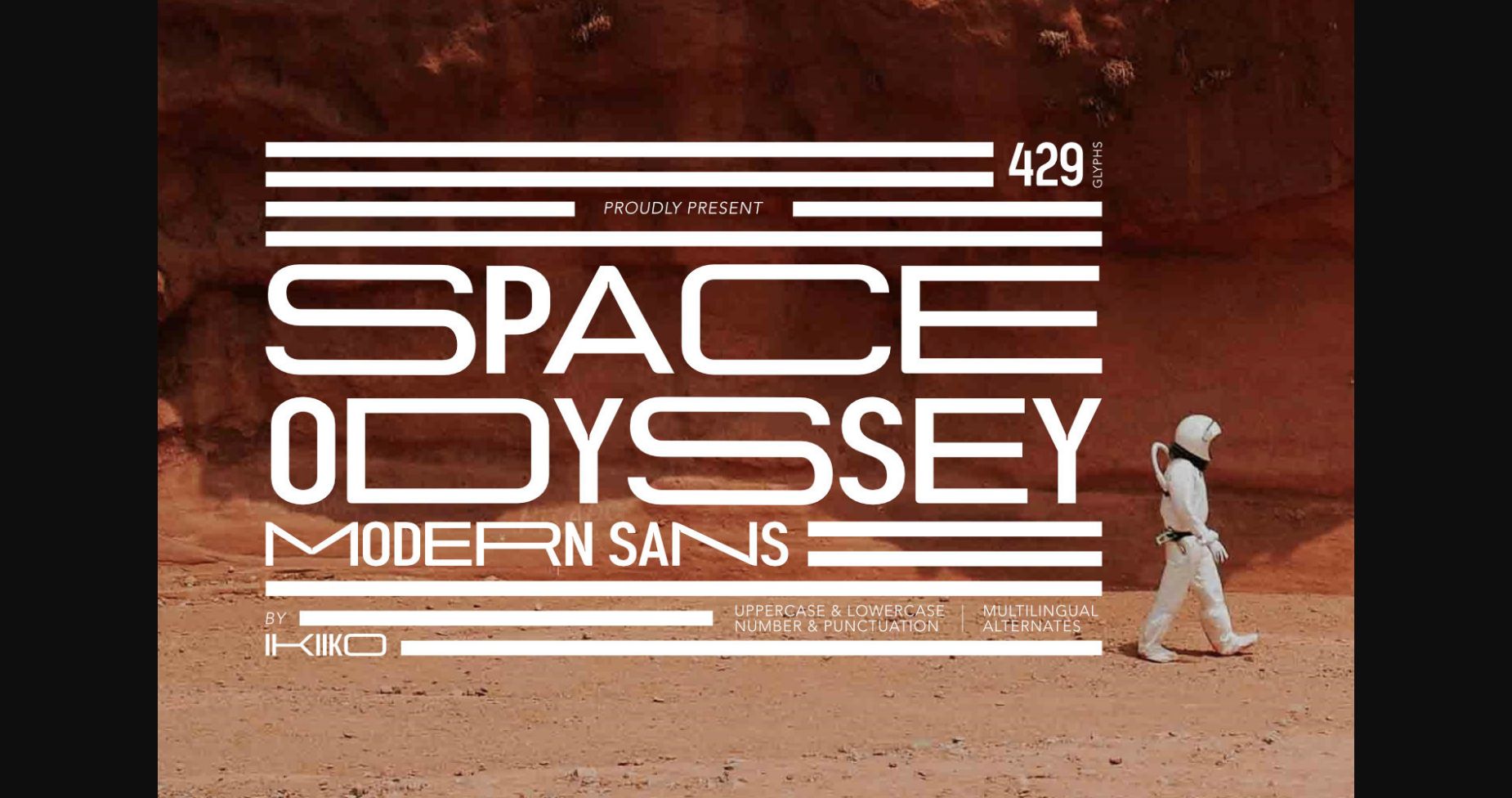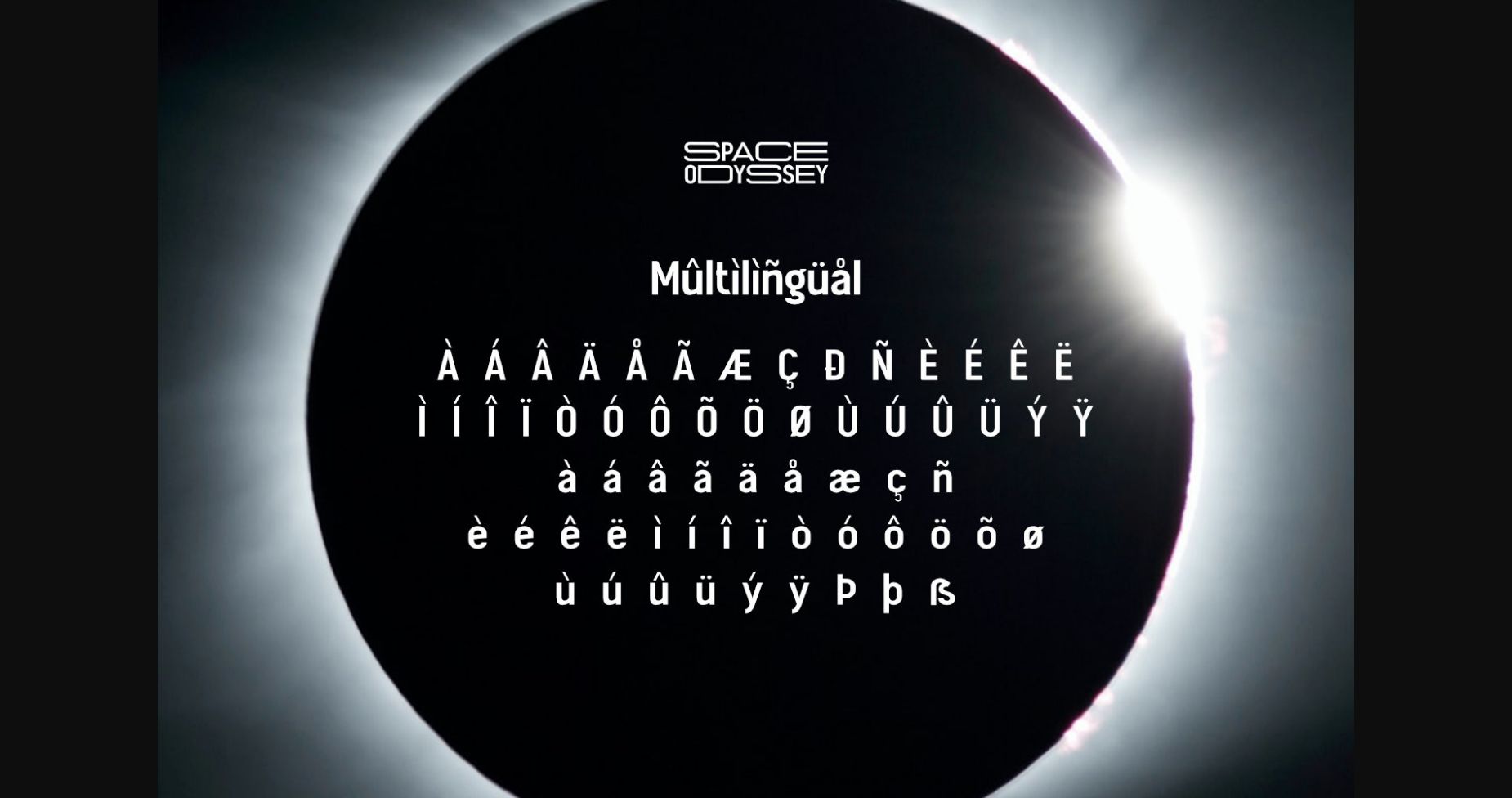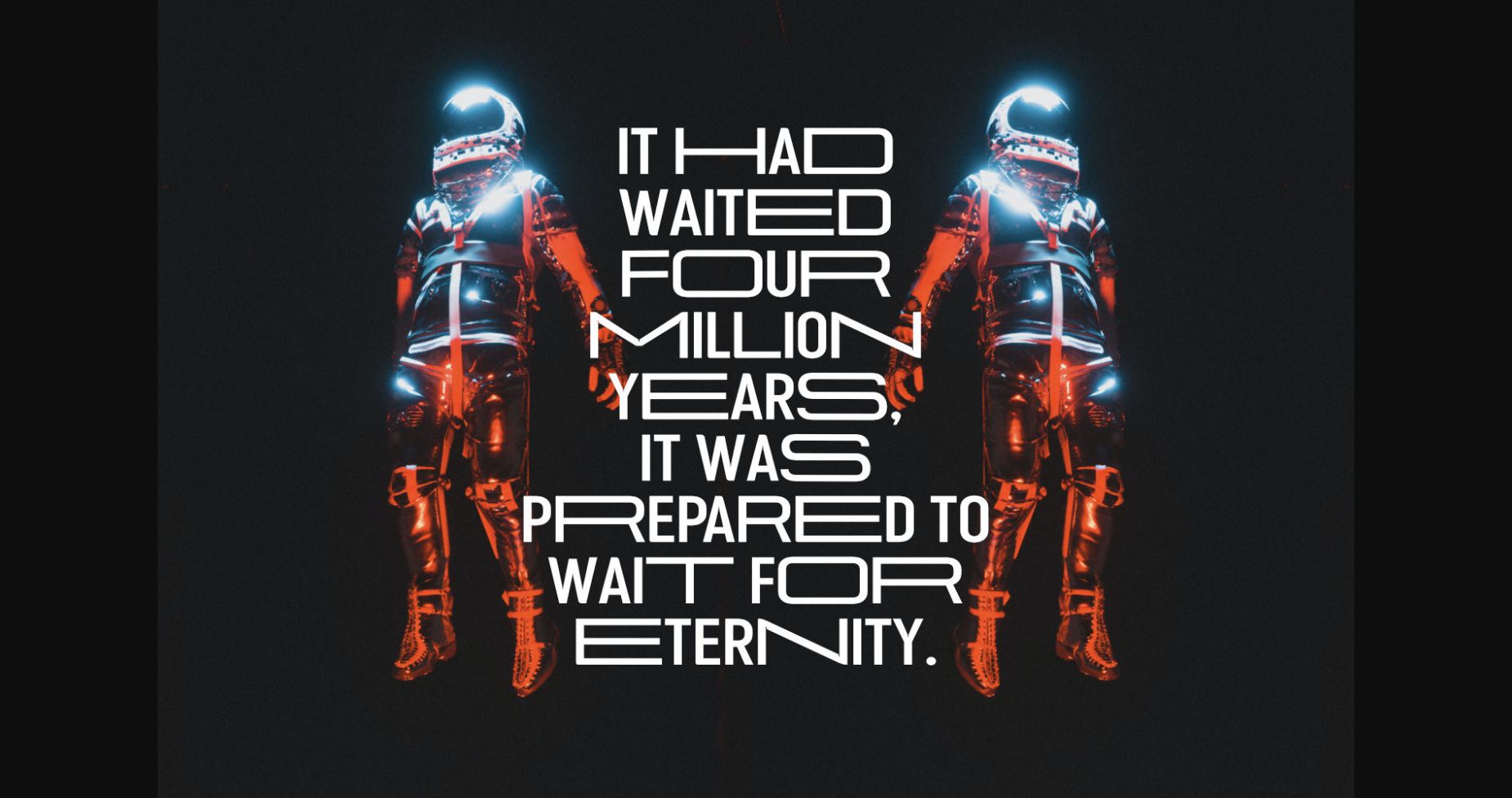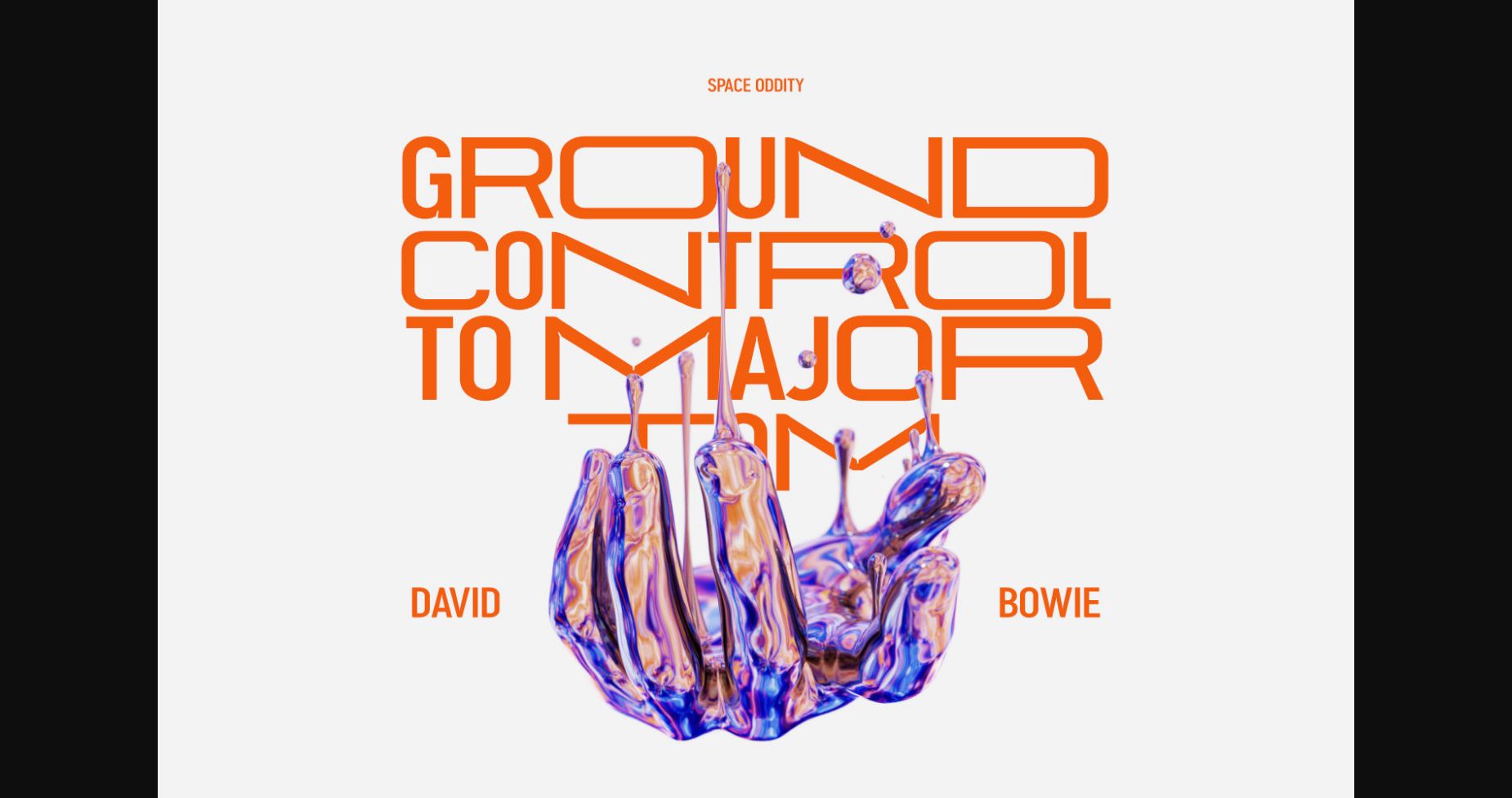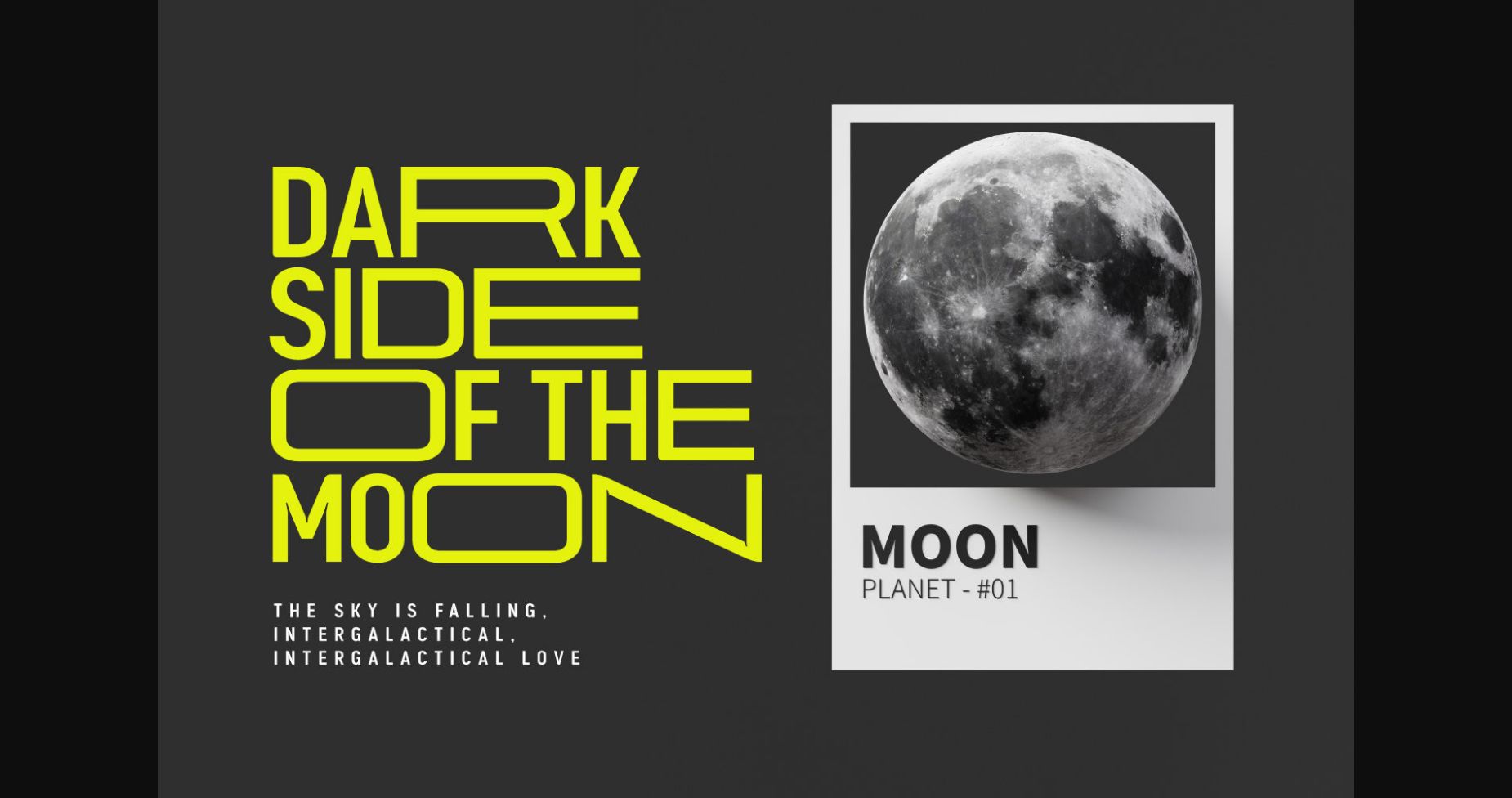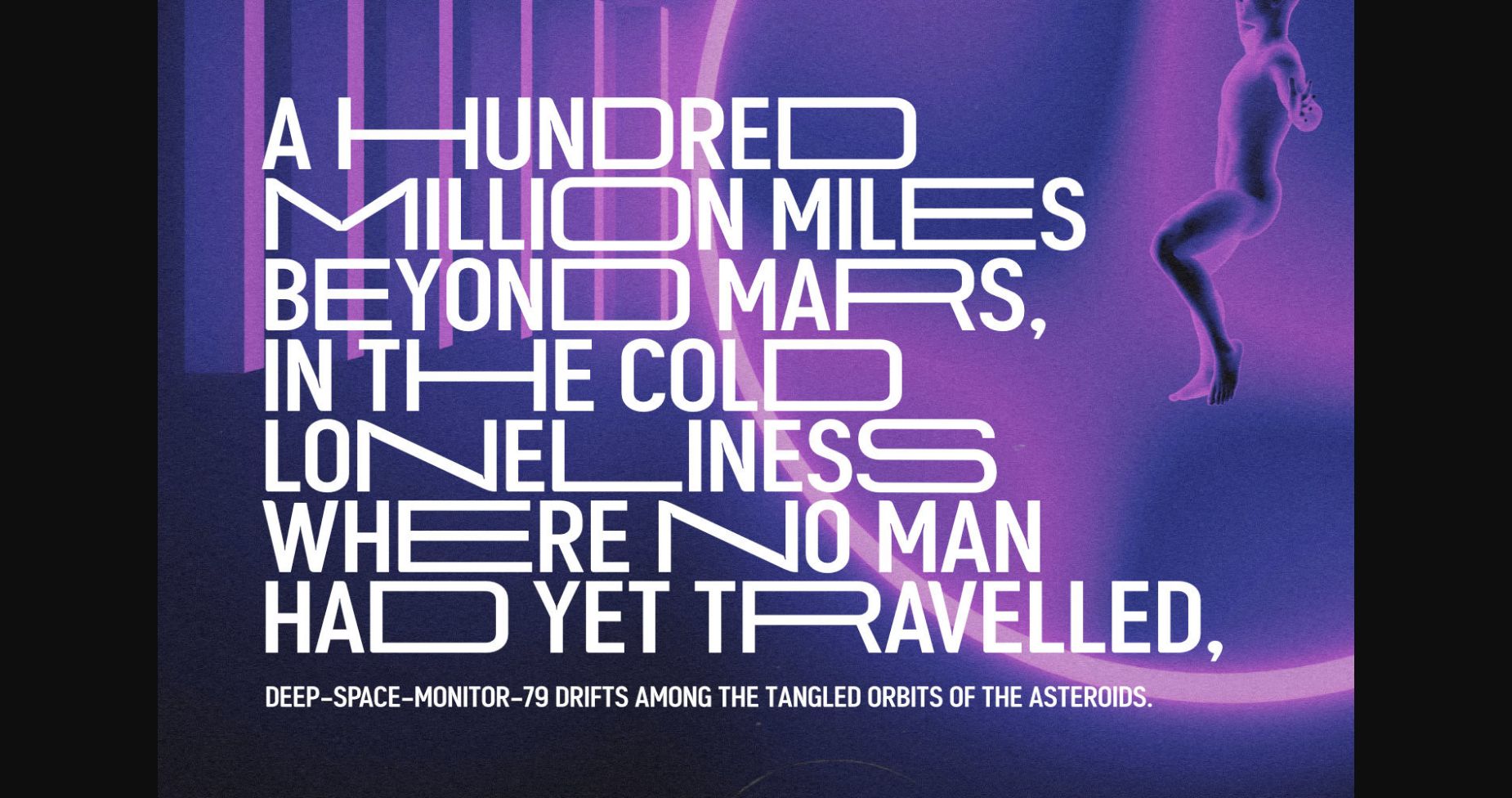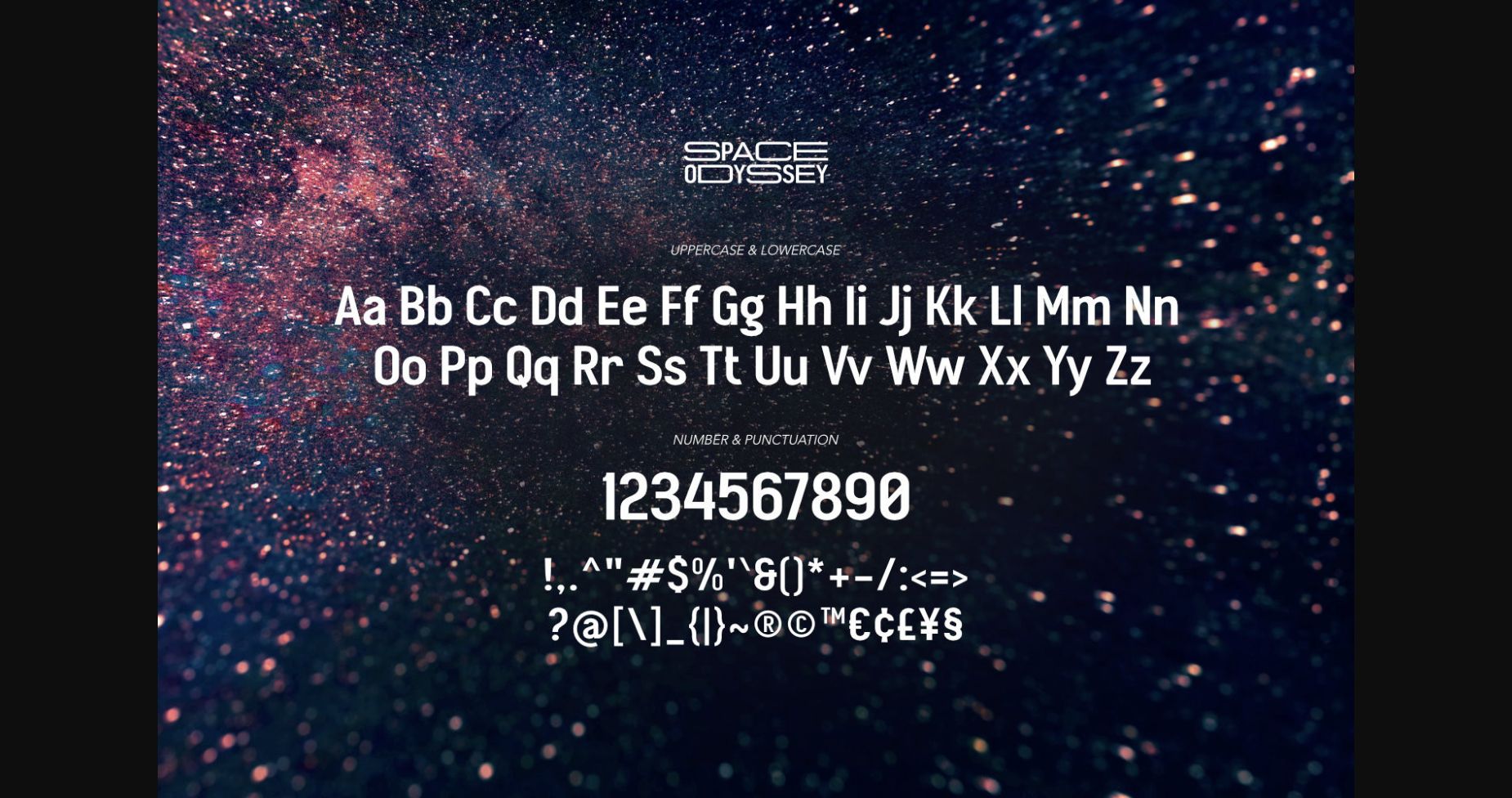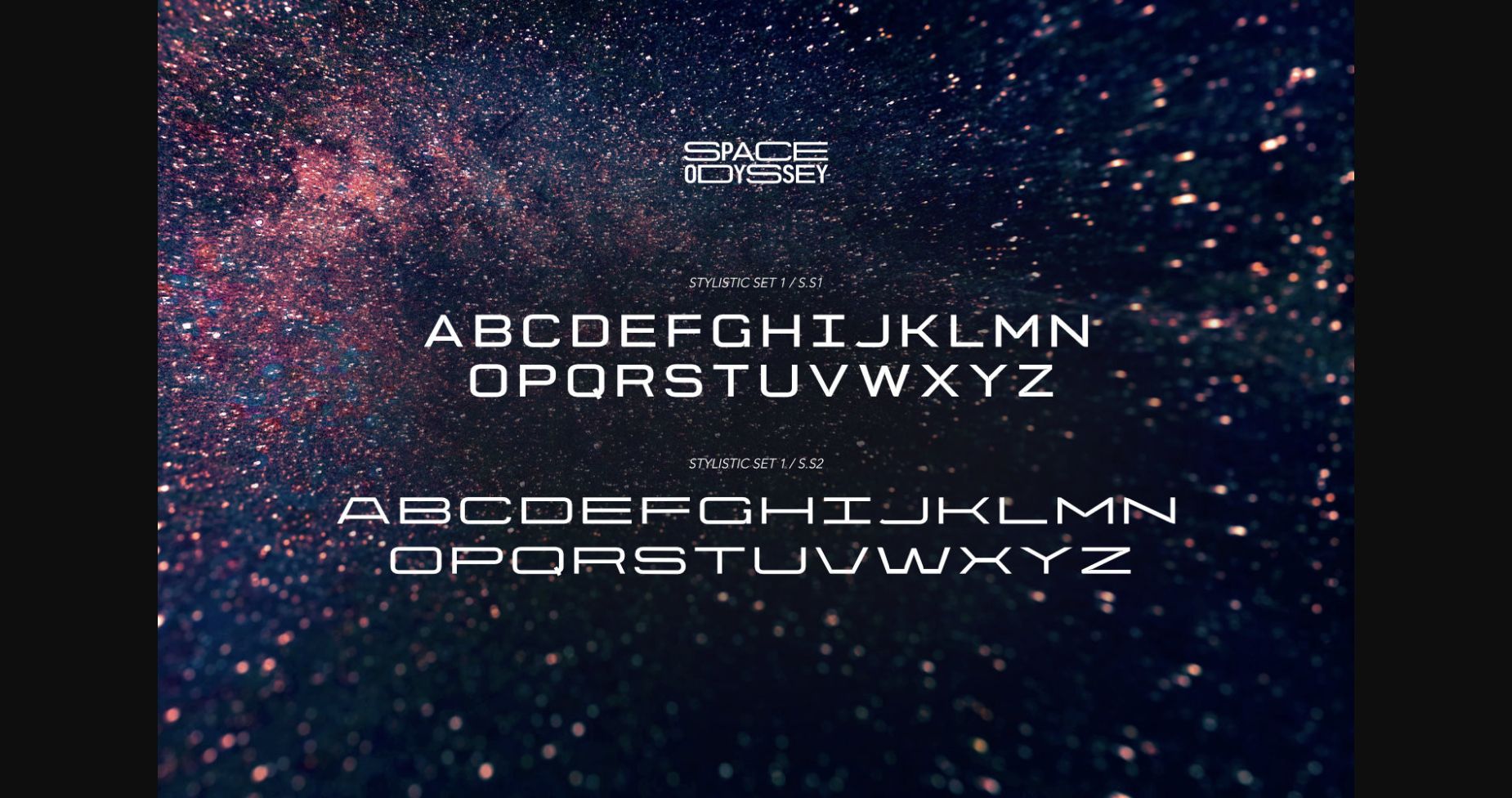
Space Odyssey is a cool and modern looking sans serif font. It is perfect for any branding project such as logos, t-shirt printing, creative products, and more.